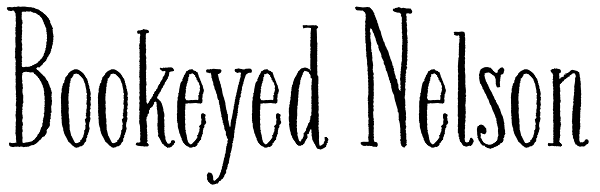
Bookeyed Nelson
Meet Bookeyed Jack, Suzanne and Nelson! Bookeyed Nelson is a stand-up guy. He’s always reliable and does what you need him to do, with a number of alternative glyphs & ligatures to customize his appearance in any OpenType aware application. He...